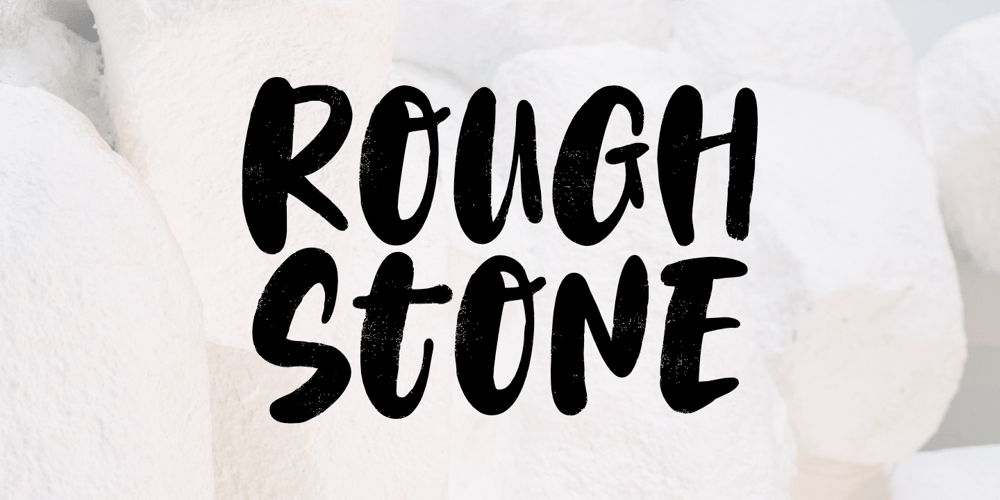
Rough Stone
Rough Stone Font Family was designed by Aldy Sidik and published by Epiclinez. Rough Stone contains 1 styles and family package options. Rough Stone is a lovely and trendy hand brush font. It is a good choice for creating eye-catching logos, brandings, and quotes.This Font is supporting more than 66 languages, which include: Afrikaans Albanian Catalan Danish Dutch English Estonian Finnish French German Italian Norwegian Portuguese Spanish Swedish Zulu, and more.You will get : Basic Latin A-Z & a-z. Numbers, symbols, and punctuations Multilingual Support. Accented Characters : ÀÁÂÃÄÅÆÇÈÉÊËÌÍÎÏÑÒÓÔÕÖØŒŠÙÚÛÜŸÝŽàáâãäåæçèéêëìíîïñòóôõöøœšùúûüýÿžß Thank you